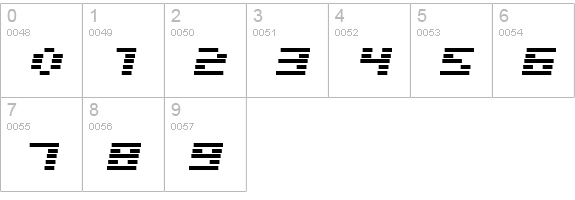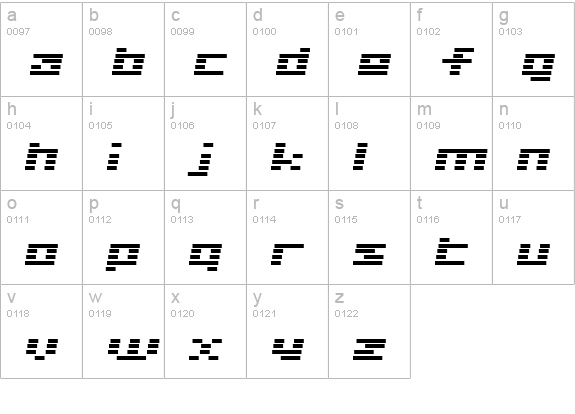
D3 Digitalism Italic Font Details
D3 Digitalism Italic is a distinctive, italic variant in the D3 typeface family \xE2\x80\x94 well suited to design and typography projects.
Introducing D3 Digitalism Italic, a sleek and stylish font that will bring a modern edge to your design projects. With its bold and dynamic letterforms, this font is perfect for creating eye-catching headlines, titles, and creative layouts. D3 Digitalism Italic exudes a sense of technological sophistication, making it ideal for projects related to digital media, gaming, and futuristic themes. Its italicized slant adds a touch of elegance and uniqueness, giving your designs a distinctive look. Not only does D3 Digitalism Italic offer impressive aesthetics, but it also provides excellent legibility, ensuring that your message is conveyed effortlessly. Whether used for print or digital mediums, this font maintains its clarity and readability, even at smaller sizes. What sets D3 Digitalism Italic apart is its versatility. It can be effortlessly paired with other fonts to create visually appealing combinations, allowing for endless design possibilities. Whether you're designing a sleek website, a captivating poster, or an engaging social media graphic, D3 Digitalism Italic will elevate your designs to new heights. And the best part? D3 Digitalism Italic is absolutely free! You can freely download this font at FontsMarket.com, ensuring that it is easily accessible to all designers and creatives. Don't miss out on this incredible opportunity to enhance your projects with a font that seamlessly blends style and functionality. In conclusion, D3 Digitalism Italic is a modern and visually striking font that will make your designs stand out from the crowd. With its bold letterforms, elegant italicized slant, and exceptional legibility, this font provides a perfect balance of aesthetics and functionality. And with its availability as a free download on FontsMarket.com, there's no reason not to add this font to your collection. Embrace the future of design with D3 Digitalism Italic!